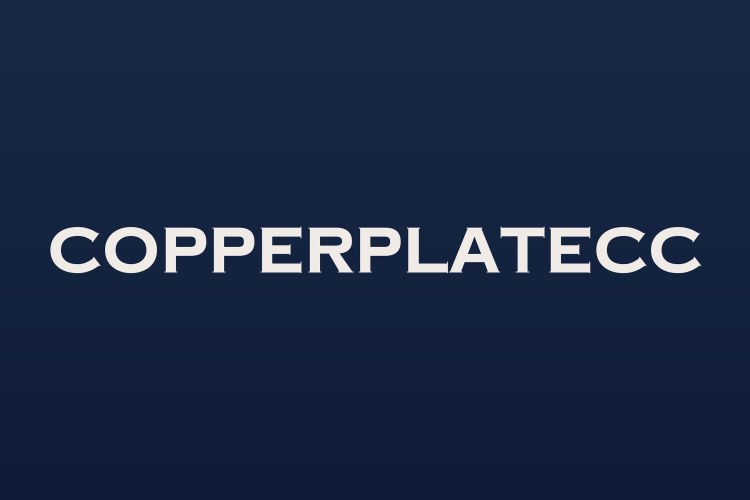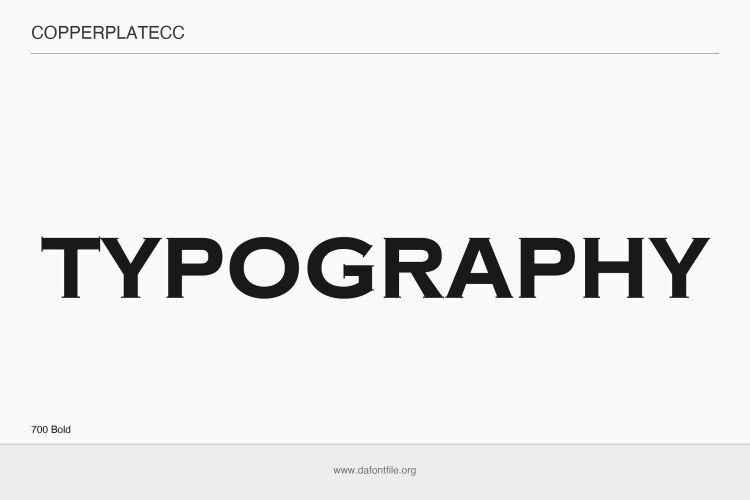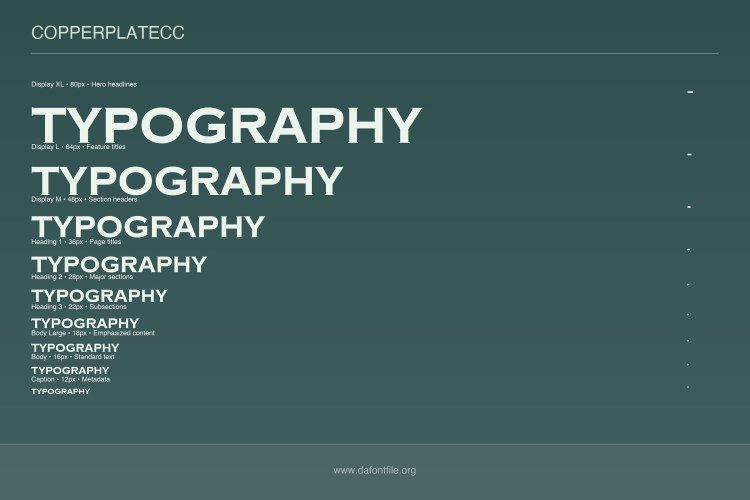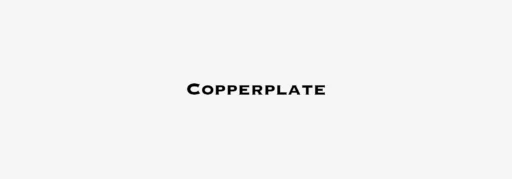
Copperplate Font
Copperplate is a bold Gothic serif typeface created by the American designer Frederic Goudy. It combines the precision of engraved lettering with the elegance of classic serif design. The font became widely recognized after appearing in the TV game show Who Wants to Be a Millionaire. Designers use Copperplate for logos, headlines, and print materials where strength and sophistication are needed. Its sharp details and balanced spacing make it perfect for both modern and traditional projects.
Copperplate Font is a Display Fonts font that brings a professional and versatile look to your projects. Copperplate is a bold Gothic serif typeface created by the American designer Frederic Goudy.